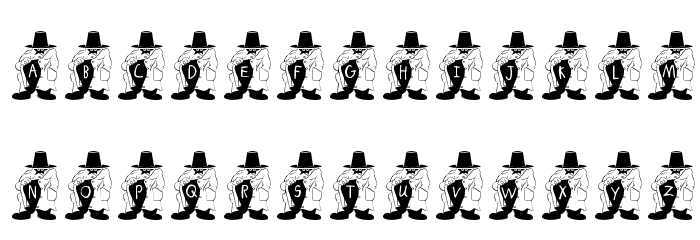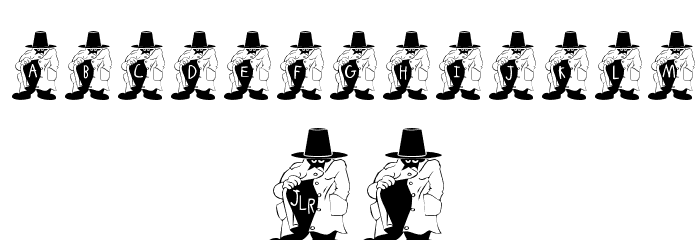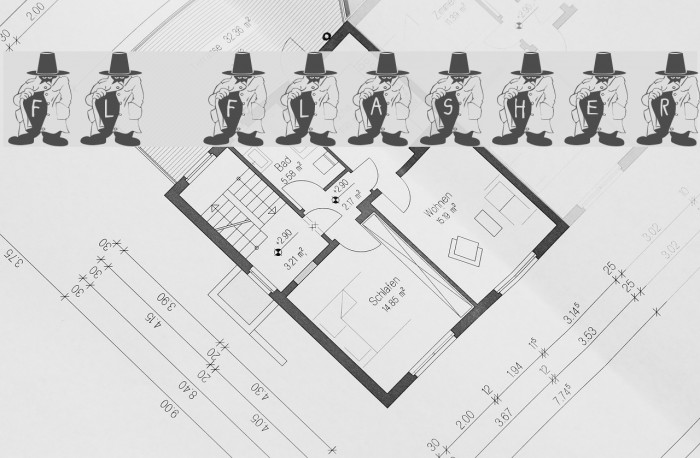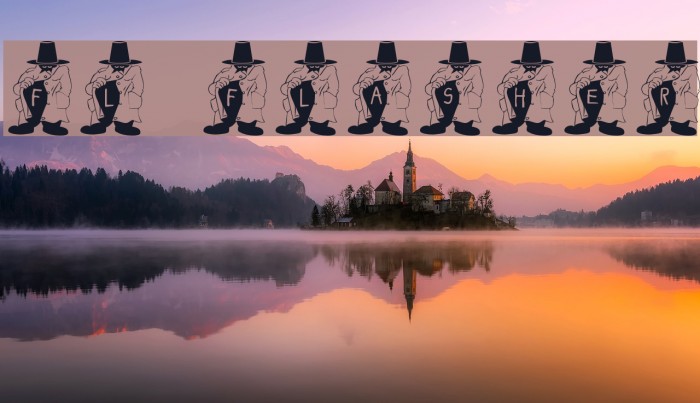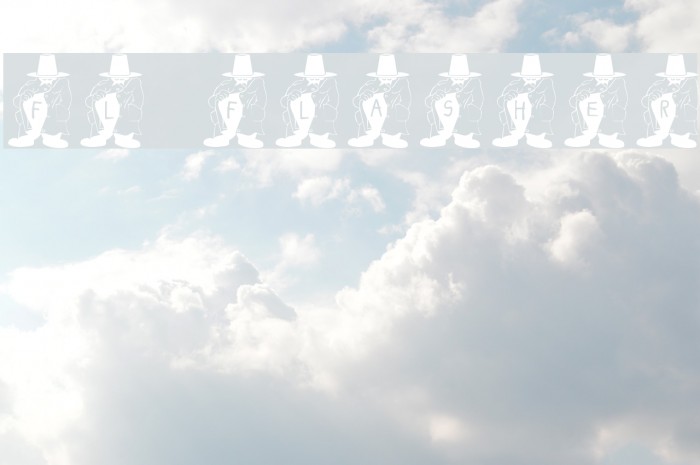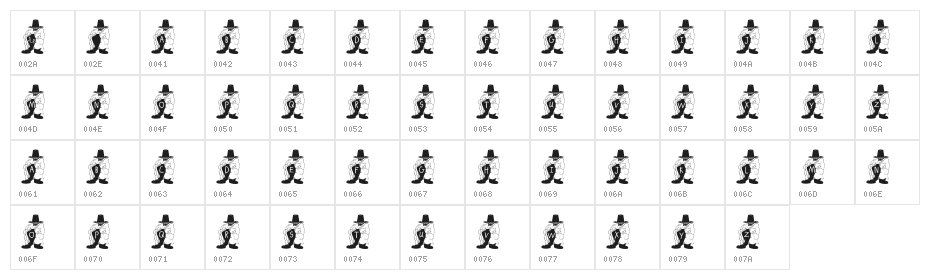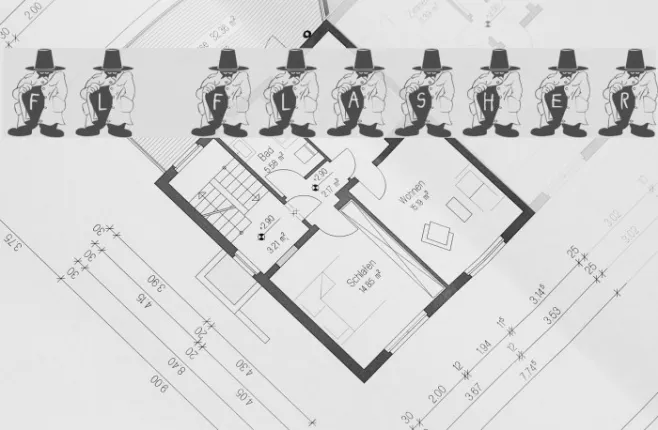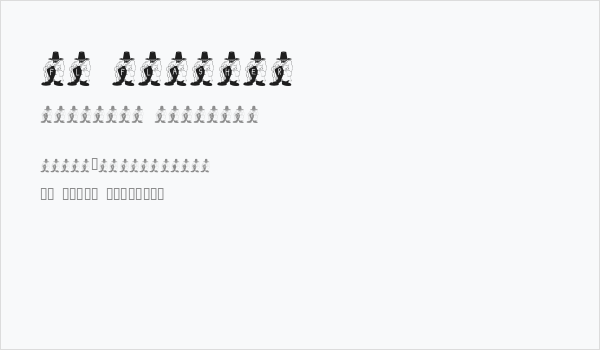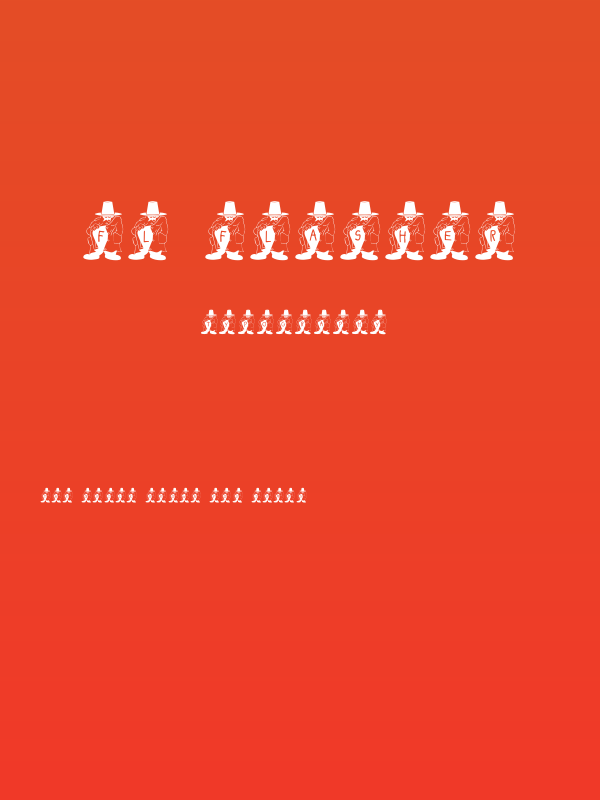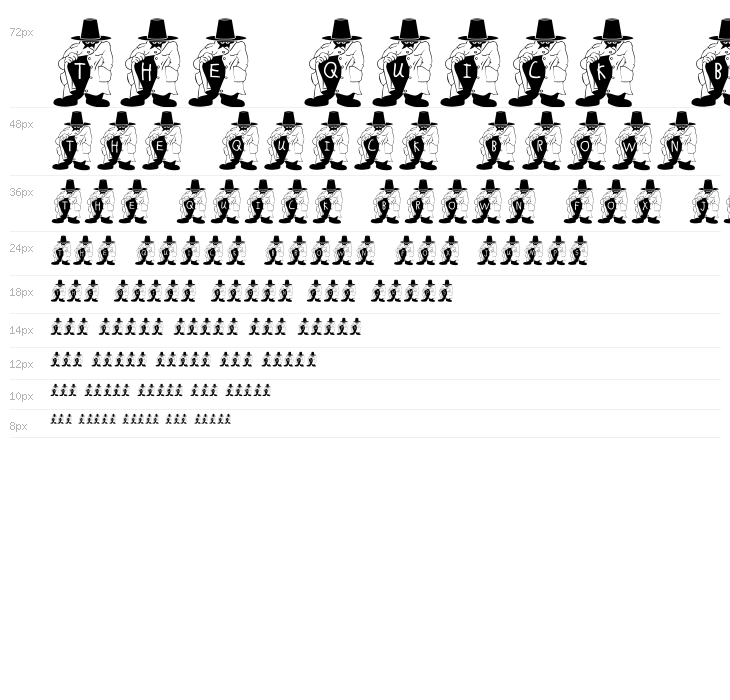
FL Flasher Font
This font features a unique and playful design where each character is embedded within the silhouette of a mysterious figure wearing a trench coat and hat. The characters are bold and cartoonish, adding a whimsical and humorous touch. The font is highly decorative, with each letter integrated into the figure's coat, creating a cohesive and entertaining visual theme. The style is reminiscent of classic detective or spy imagery, making it stand out with its creative and thematic approach.
A playful, detective-themed decorative font with characters embedded in trench coat silhouettes.
- Proposed Projects: Ideal for themed posters, comic books, children's books, or any project requiring a fun and engaging typeface.
- Use Case: Logos, Posters, Themed Events